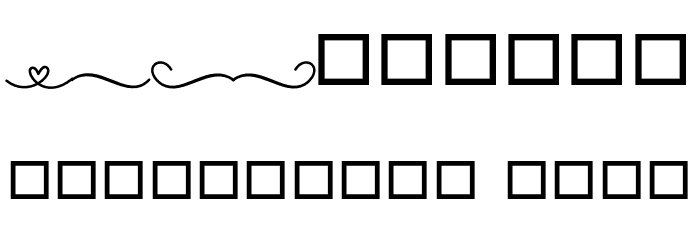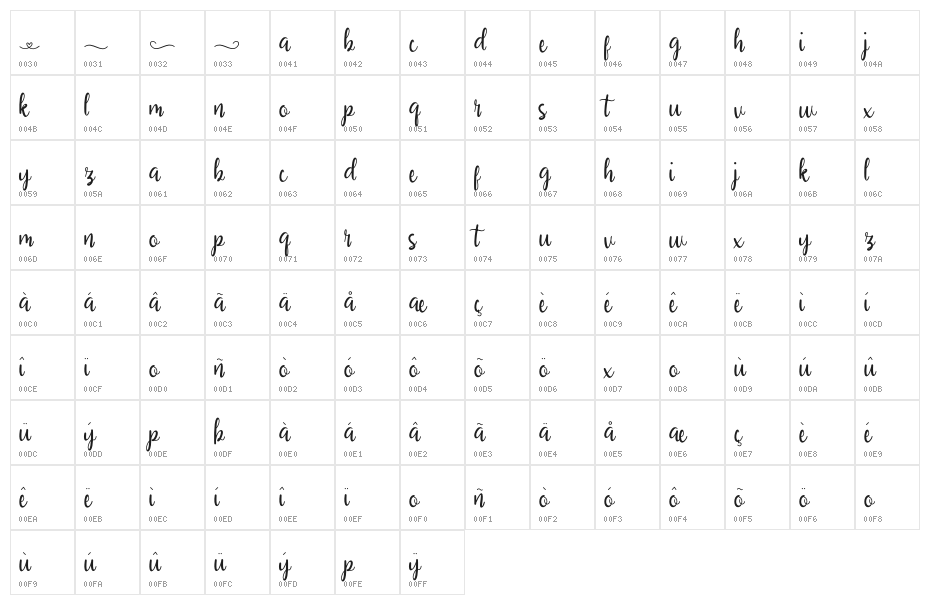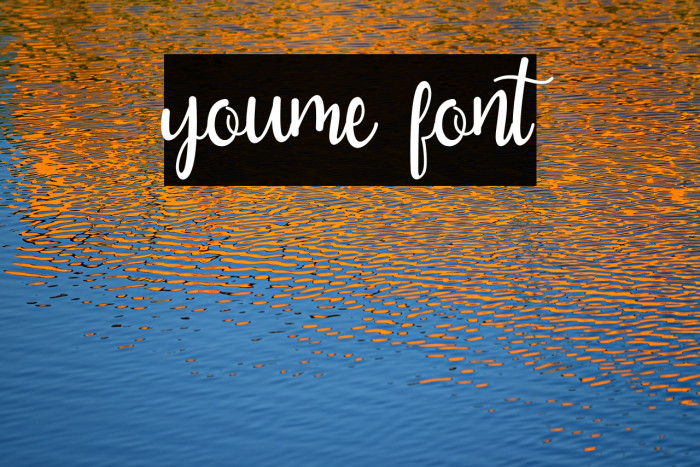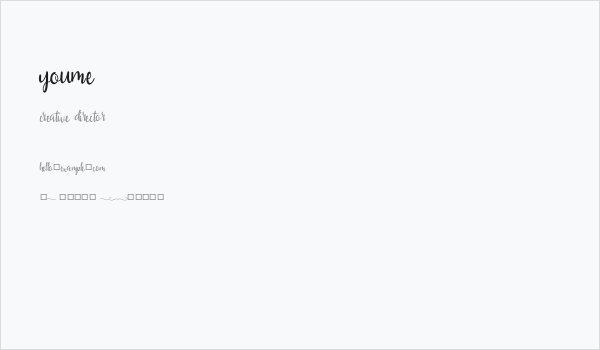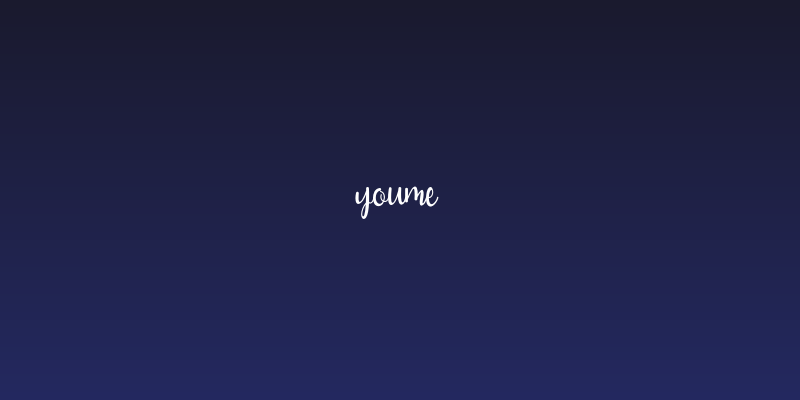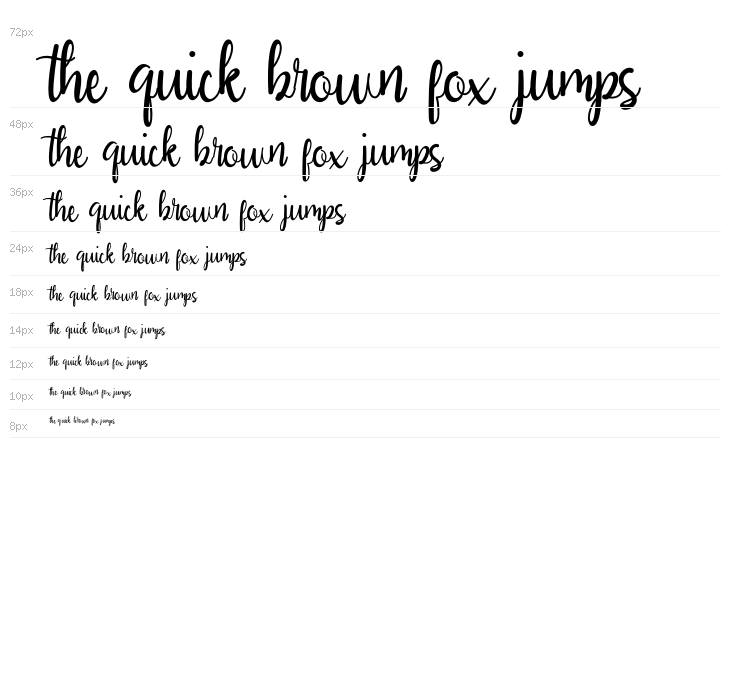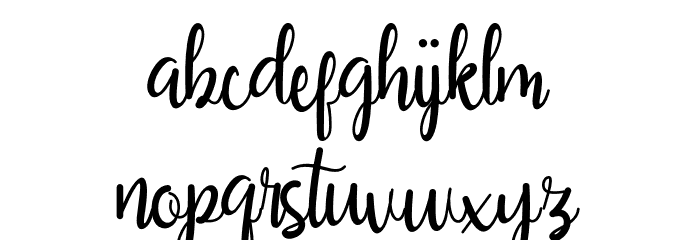
YouMe Font
YouMe Description
This font features a playful and elegant handwritten style, characterized by smooth, flowing curves and a consistent stroke width. The letters are connected, creating a sense of continuity and fluidity, which is enhanced by the slight slant to the right. The font includes both uppercase and lowercase letters, with a distinctive flair in the lowercase 'g', 'j', and 'y', which have elongated descenders. The overall appearance is casual yet refined, making it suitable for a variety of creative applications. The font also includes decorative elements such as swashes and ornaments, adding to its versatility and charm.
| Use Case | Logos, Invitations, Social Media |
| Proposed Projects | Ideal for wedding invitations, greeting cards, branding, and social media graphics. |